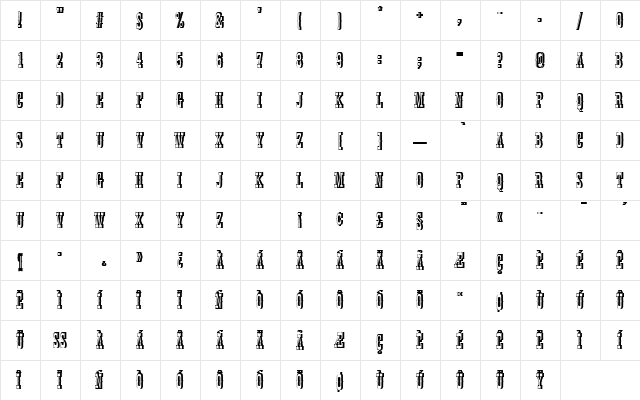
ThunderbirdDExtConRe1 Regular
Design Context for ThunderbirdDExtConRe1 Typeface
ThunderbirdDExtConRe1 is a composed and adaptable typeface that performs quietly and consistently across a wide range of design contexts.